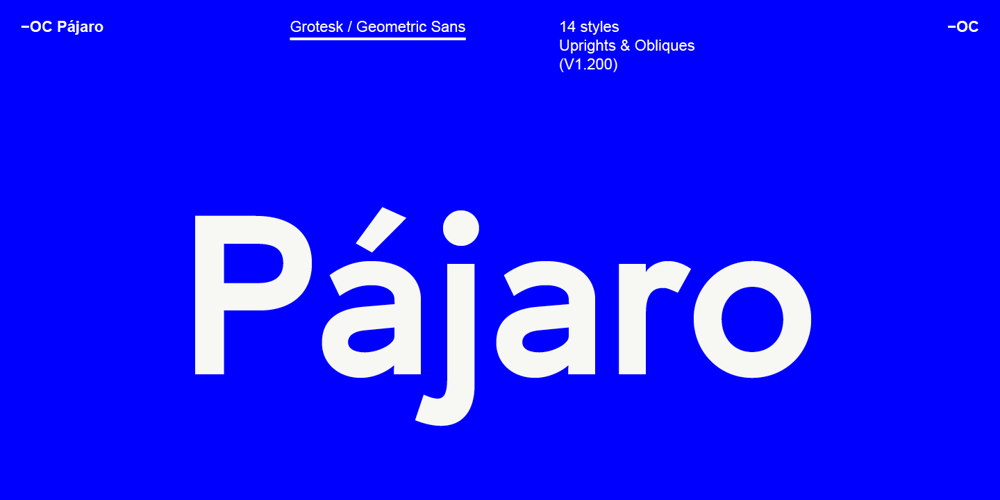
-OC Pajaro Font Family was designed by Andrew Bellamy and published by OtherwhereCollective. -OC Pajaro contains 14 styles and family package options. -OC P·jaro [pah-hah-roh, Spanish for bird] is a contemporary sans serif available in fourteen styles. It combines the readable width, rhythm and regular proportions of a grotesk with roots in a geometric. The result is a highly versatile font which fuses the timeless elegance of Futura with the compact utilitarian typesetting of the likes of Akzidenz and Helvetica. -OC P·jaro effortlessly traverses the spectrum from high-end sophistication, approachable readability, and functional information design. Crafted with a tireless focus on kerning, angled terminals are cut to fit neighboring curved letters making the bolder weights perfect for logotypes and display type, while lighter weights are well suited for long passages of text. A large x-height and short ascenders that run level with the low cap-height give a strong horizontal emphasis and allow for tightly packed lines of type. Typical of both grotesk and geometric styles the design has an even weight with minimal stroke contrast and the slanted form is an†oblique†rather than a†true italic. The default double-story ëaí and ëgí give a more academic touch, while the friendlier single stories are available as alternates. The font is designed with extensive open type features including old style figures when setting extensive copy in sentence case and circled uppercase, numbers and symbols inspired by 1960s transit signage.